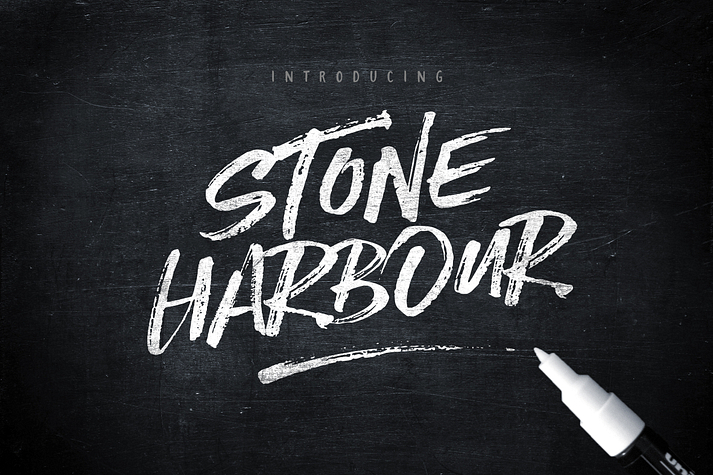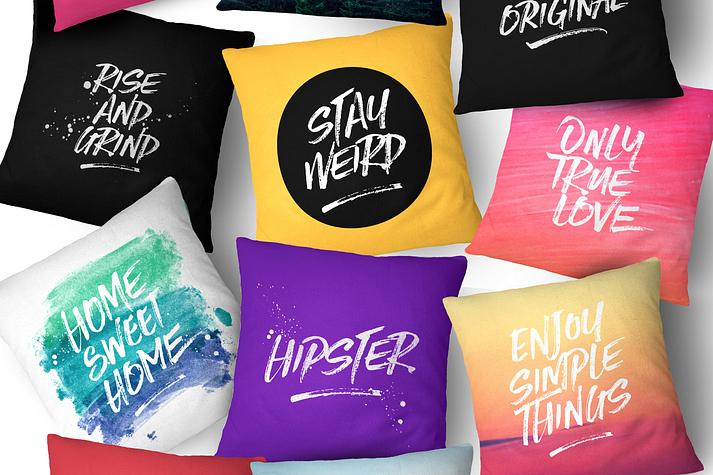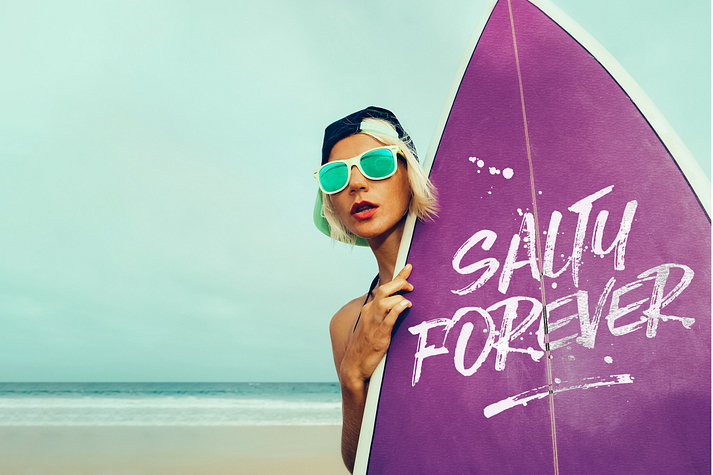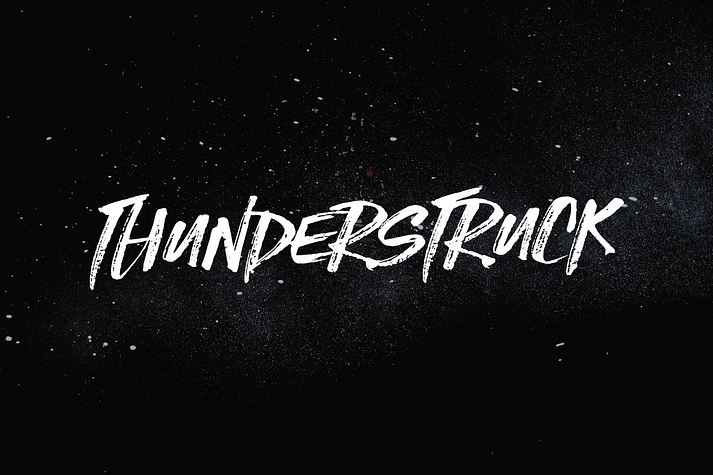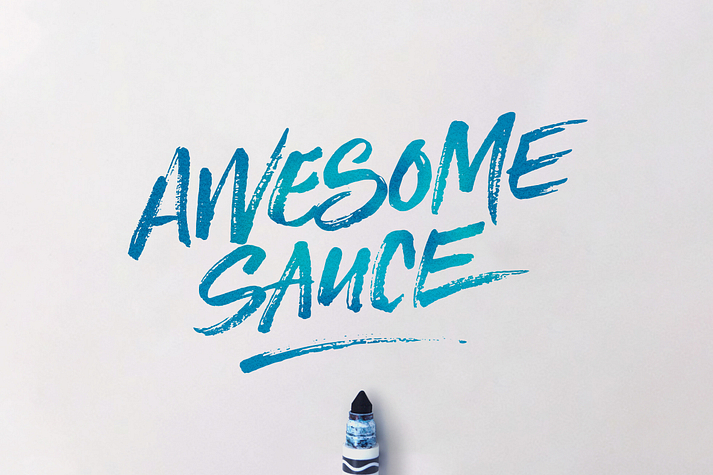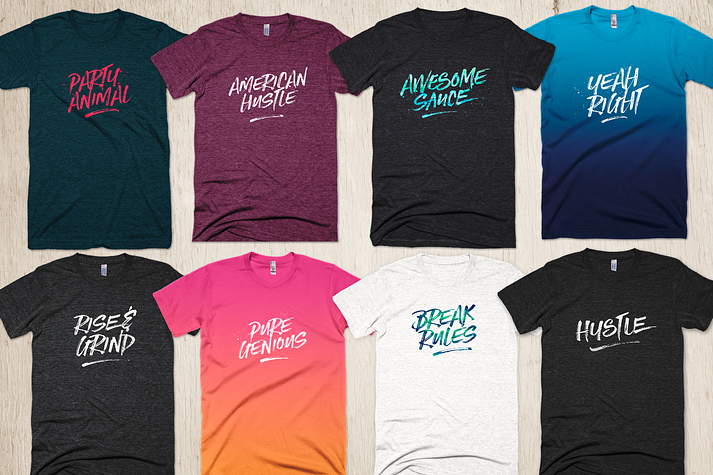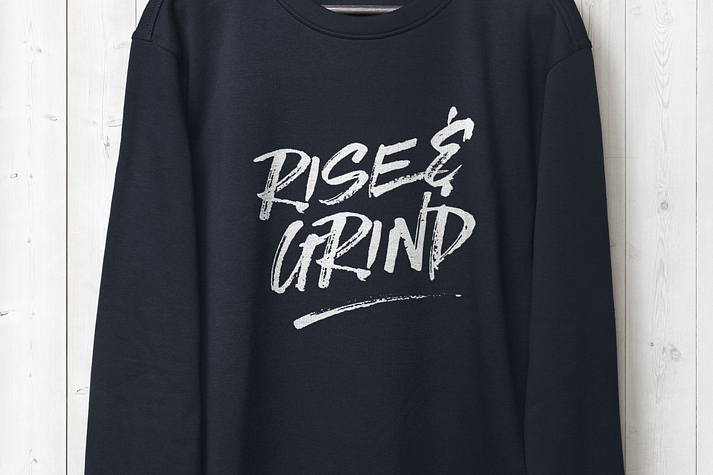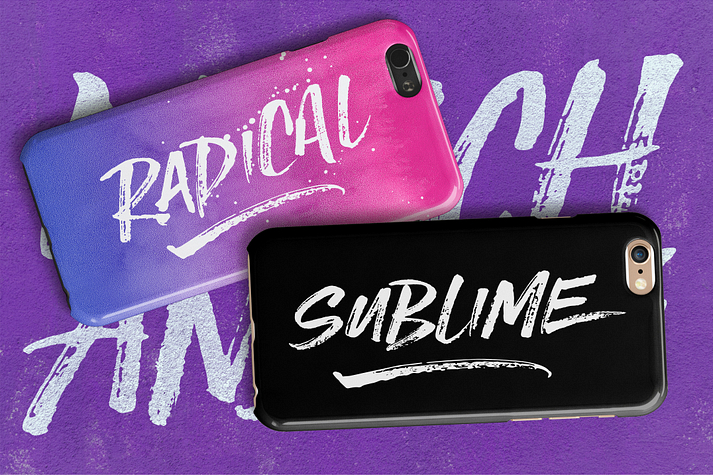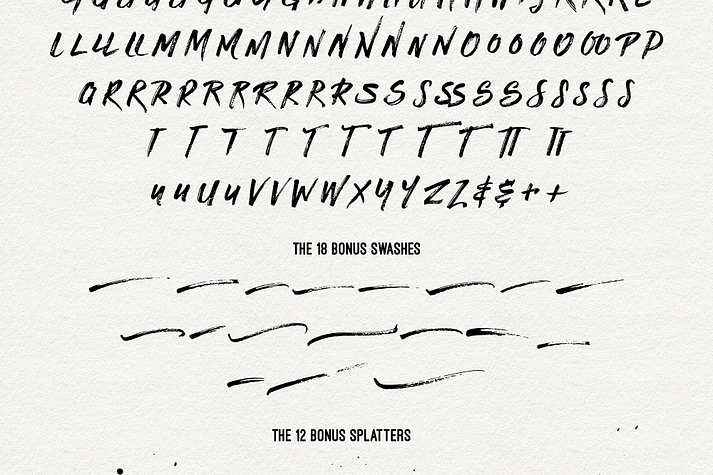
STONE HARBOUR
STONE HARBOUR is a brush display and dingbat font family. This typeface has three styles and was published by Nicky Laatz.
Introducing Stone Harbour! ...a punchy new Dry Marker Script ..with loads of attitude and extras.
• Stone Harbour font (Regular + Italic) Stone Harbour is an all uppercase font - the uppercase being the main letters, the lowercase has alternate letters, and then there are 141 EXTRA alternate letters accessible via a glyphs panel for your designing pleasure :)
• Stone Harbour Swashes font - 18 dashing swashes to add punch to your designs.